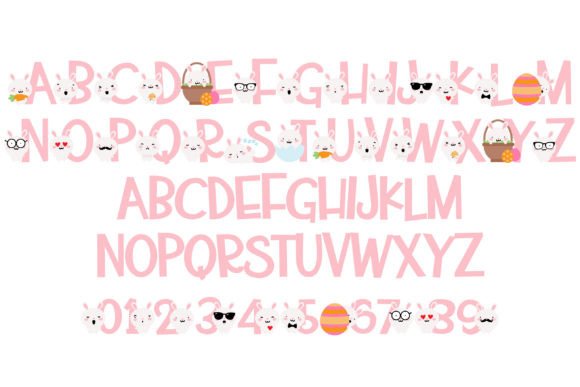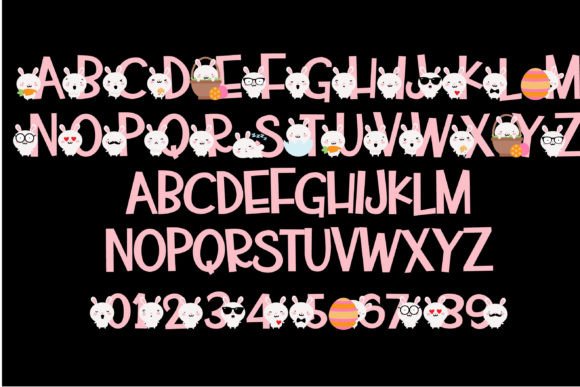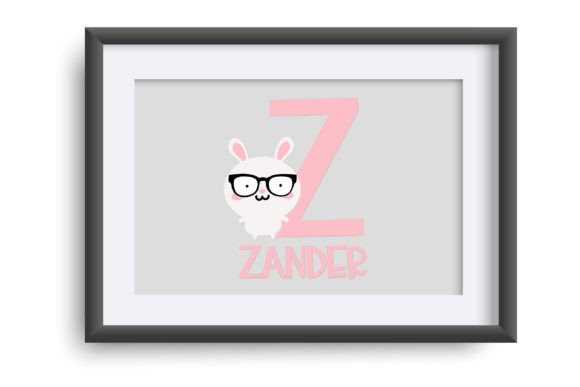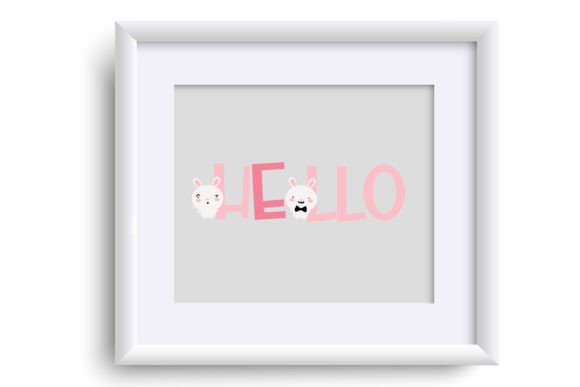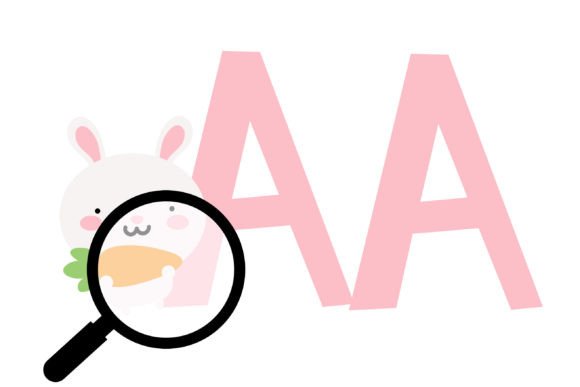
Baby Bunnies Font: The Ultimate Addition to Your Easter and Spring Designs
Are you looking for a font that can add a touch of whimsy and cuteness to your designs? Look no further than the Baby Bunnies font! This charming and adorable bunny font is perfect for Easter cards, invitations, and other festive designs. In this article, we’ll take a closer look at the Baby Bunnies font and explore its features, benefits, and uses.
What is Baby Bunnies Font?
Baby Bunnies is a playfully designed font that features cute bunnies nestled inside each letter. The font is surrounded by delightful springtime colors, making it perfect for Easter and spring-themed designs. The font is designed to be used for a variety of projects, including Easter cards, invitations, and other festive designs.
Key Features of Baby Bunnies Font
- Playful Design: Each letter is playfully designed with a cute bunny nestled inside, making it perfect for adding a touch of whimsy to your designs.
- Springtime Colors: The font is surrounded by delightful springtime colors, making it perfect for Easter and spring-themed designs.
Benefits of Using Baby Bunnies Font
There are many benefits to using the Baby Bunnies font in your designs. Here are a few:
- Adds Whimsy and Cuteness: The font adds a touch of whimsy and cuteness to your designs, making them perfect for Easter and spring-themed projects.
- Perfect for Festive Designs: The font is perfect for Easter cards, invitations, and other festive designs.
- Easily Customizable: The font is easily customizable, allowing you to adjust the size, color, and style to fit your design needs.
- Time-Saving: The font saves you time and effort, allowing you to create professional-looking designs in minutes.
Uses of Baby Bunnies Font
The Baby Bunnies font can be used for a variety of projects, including:
- Easter Cards: Create adorable Easter cards with the Baby Bunnies font.
- Invitations: Use the font to create festive invitations for Easter and spring events.
- Spring-themed Designs: Use the font to create spring-themed designs, such as posters, flyers, and brochures.
- Crafting Projects: Use the font to create crafting projects, such as scrapbooking, DIY signs, and other handmade items.
Tips and Tricks for Using Baby Bunnies Font
Here are a few tips and tricks for using the Baby Bunnies font:
- Experiment with Colors: Experiment with different colors and combinations to find the perfect look for your design.
- Mix and Match: Mix and match the font with other fonts and graphics to create a unique look.
- Use Swashes and Glyphs: Use the swashes and glyphs to add extra details and interest to your design.
In conclusion, the Baby Bunnies font is a charming and adorable font that is perfect for adding a touch of whimsy and cuteness to your designs. With its playful design, springtime colors, and PUA encoding, this font is ideal for Easter cards, invitations, and other festive designs. Whether you’re a designer or crafter, the Baby Bunnies font is a must-have addition to your font collection.